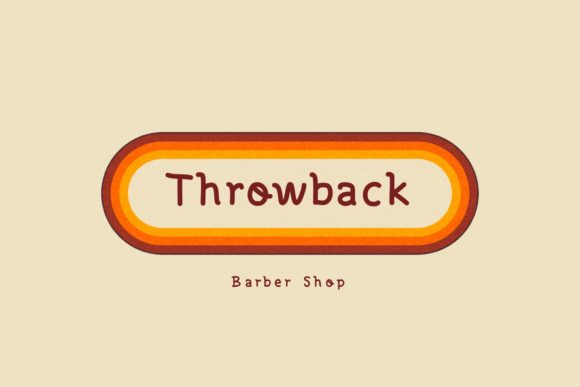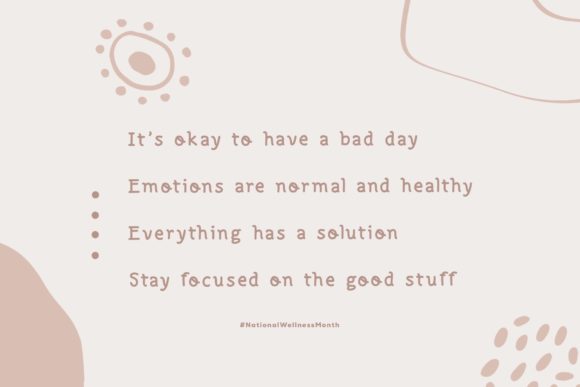
Introduction to Josephine Font
Josephine is a clean and neat handwritten font that will impress you with its versatility.
Use the font for Cricut projects, design, logos, branding, deco, mugs, pantry labels, wedding invitations, stickers, business card, greeting cards, posters, social media, planner prints, and more .
Key Features of Josephine Font
Why Choose Josephine Font?
Josephine Font offers exceptional quality and versatility, making it a valuable addition to your design toolkit. Whether you’re creating for personal projects or commercial use, Josephine Font delivers professional results.